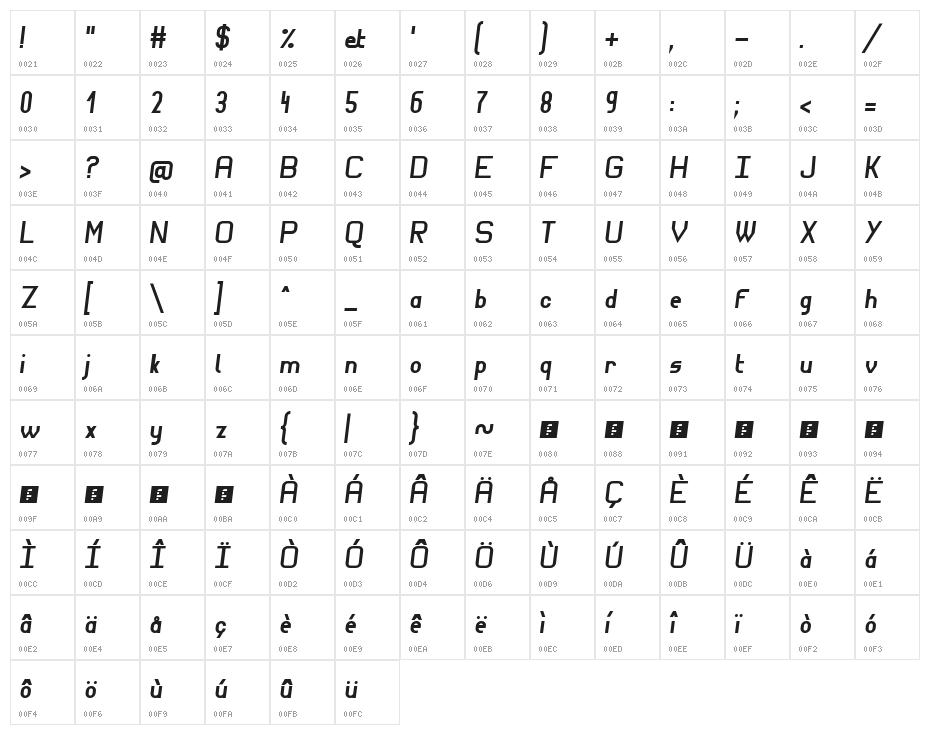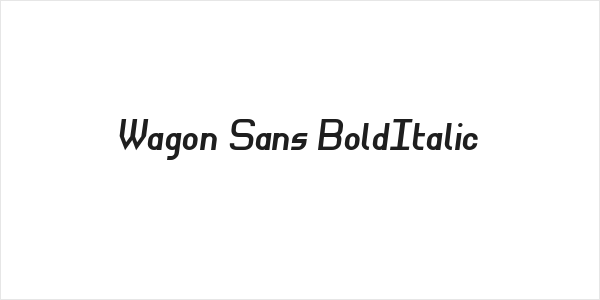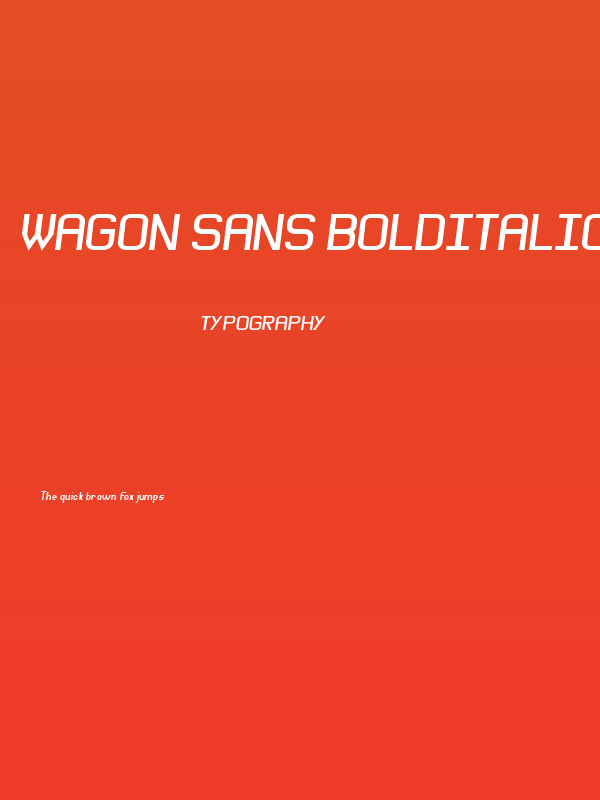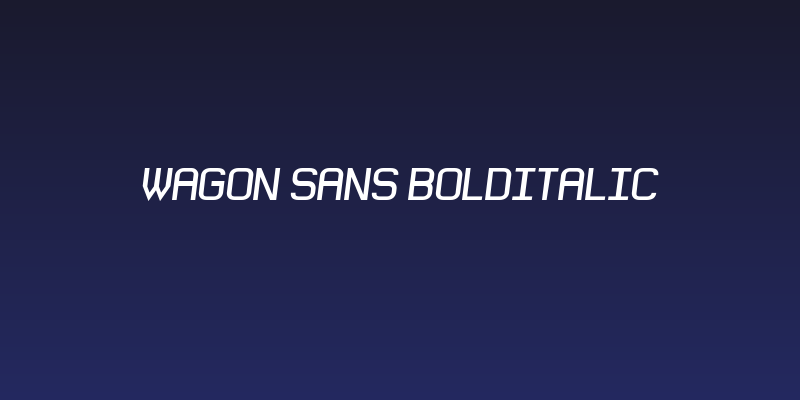
Wagon Sans BoldItalic Font
Wagon Sans BoldItalic Description
This font exhibits a modern and dynamic style with a bold and italicized appearance. The characters are slightly slanted, giving a sense of movement and energy. The sans-serif design ensures a clean and uncluttered look, while the bold weight adds emphasis and strength. The letterforms are well-defined with a consistent stroke width, contributing to a balanced and harmonious appearance. The spacing between characters is normal, allowing for good readability. This font is versatile and can be used in various design contexts where a contemporary and assertive look is desired.